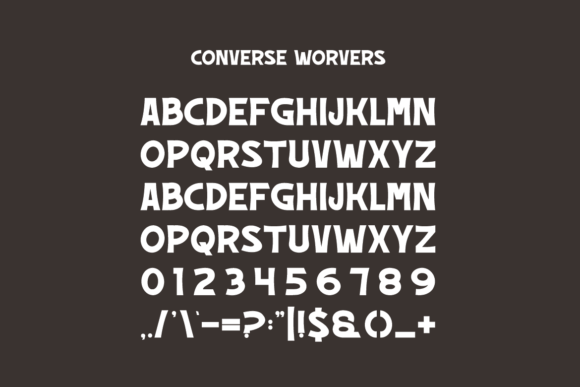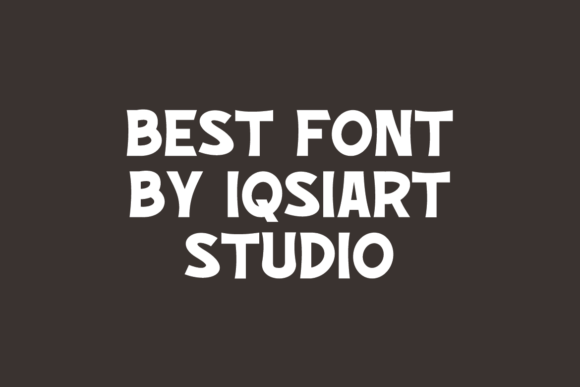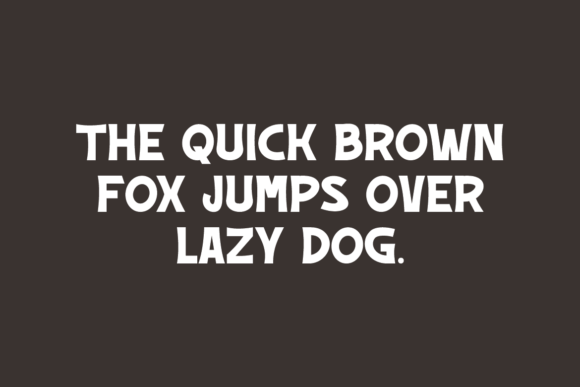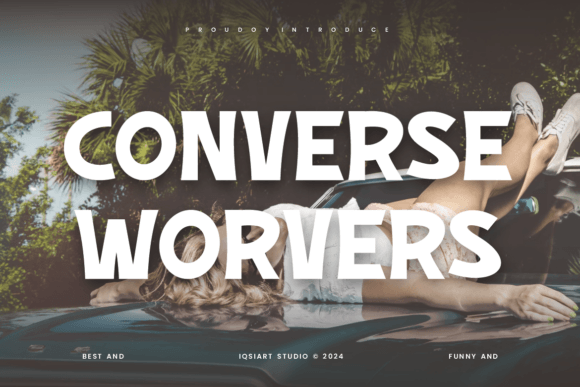
Introduction to Converse Worvers Font
Converse Worvers is a cute and colorful display font.
It embodies playfulness and authenticity and is the perfect choice for any children activity or school project Add this chunky lettered font to your designs and notice how it makes them come alive.